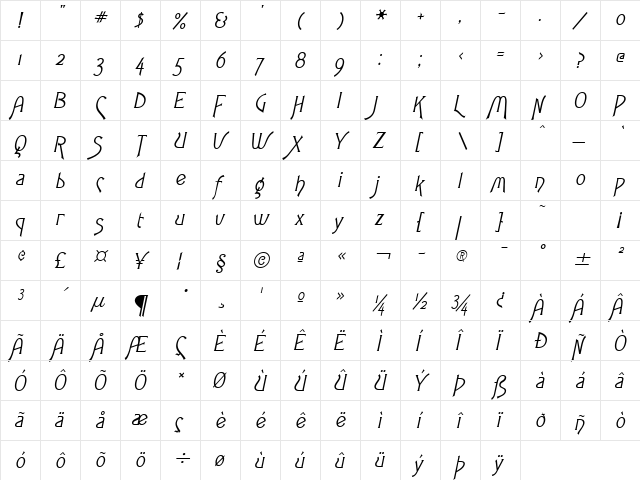
Fletch Extended Italic
Design Context for Fletch Extended Typeface
Fletch Extended is a composed and adaptable typeface that performs quietly and consistently across a wide range of design contexts. The slanted form adds forward momentum and visual energy.
Pro Tip: Try Fletch Extended for annotation and caption copy alongside an upright companion — the contrast in angle creates a dynamic but ordered typographic system.